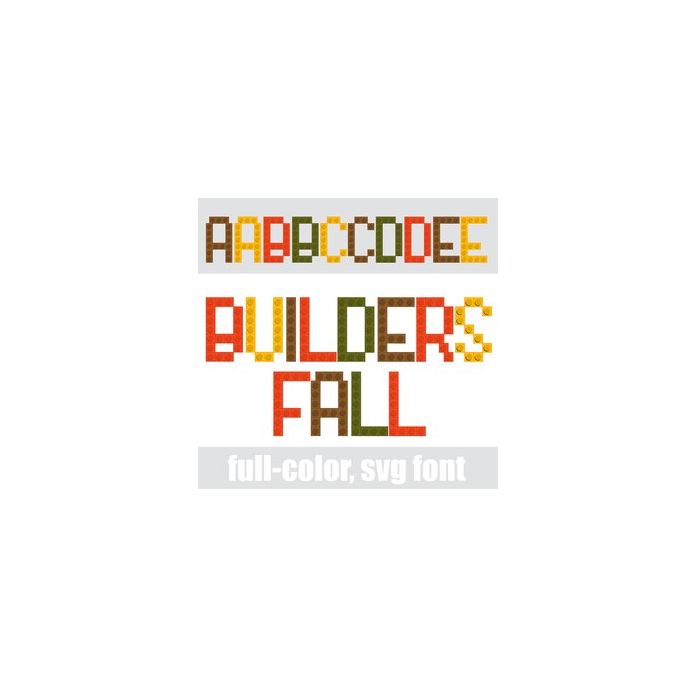
This full-color font looks like it was built from autumn colored building blocks. There is an alt case w/ additional colors you can access through your system or Silhouette's glyph map.